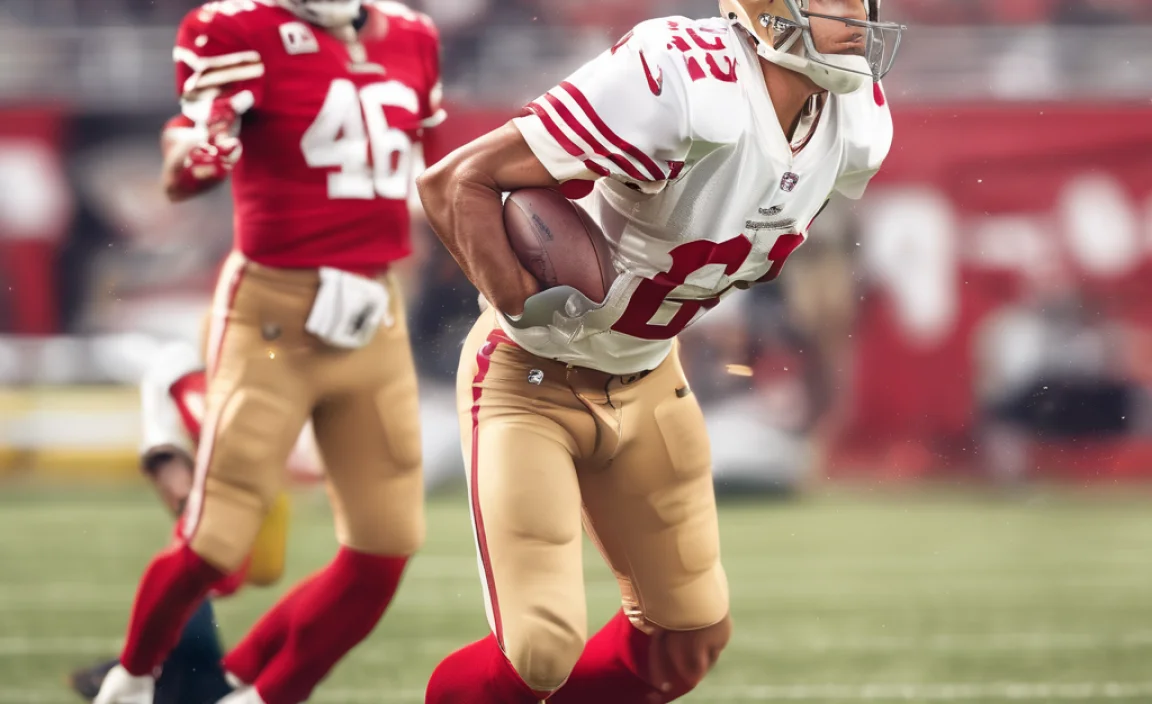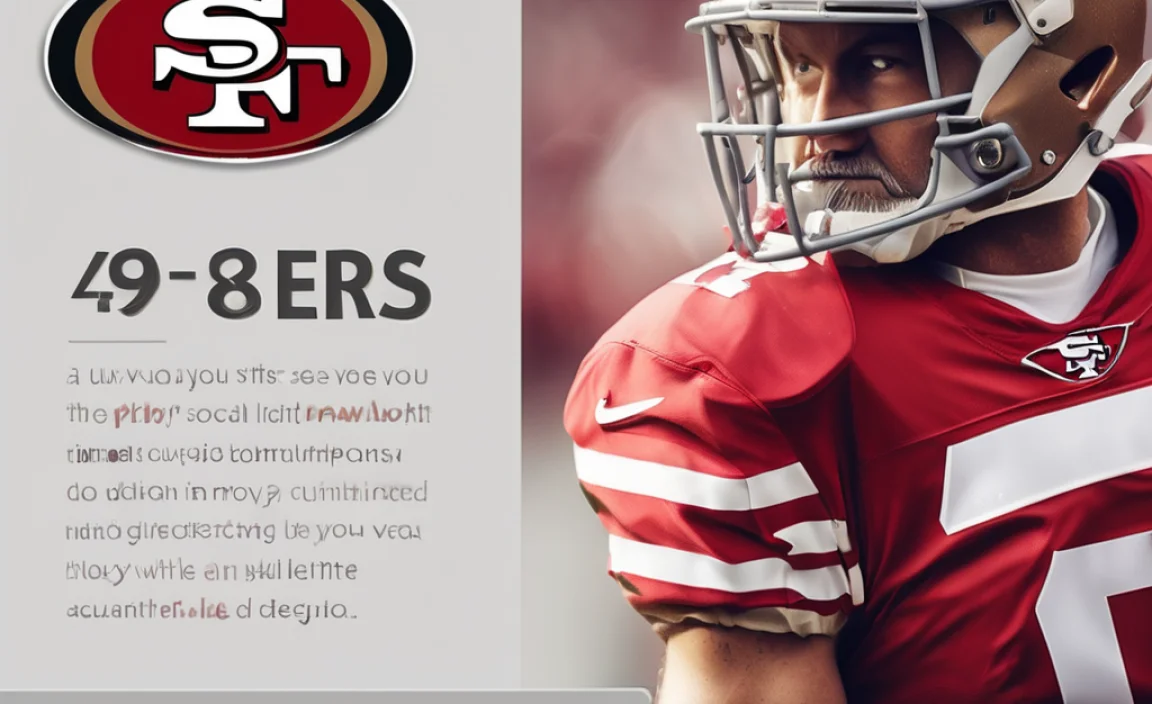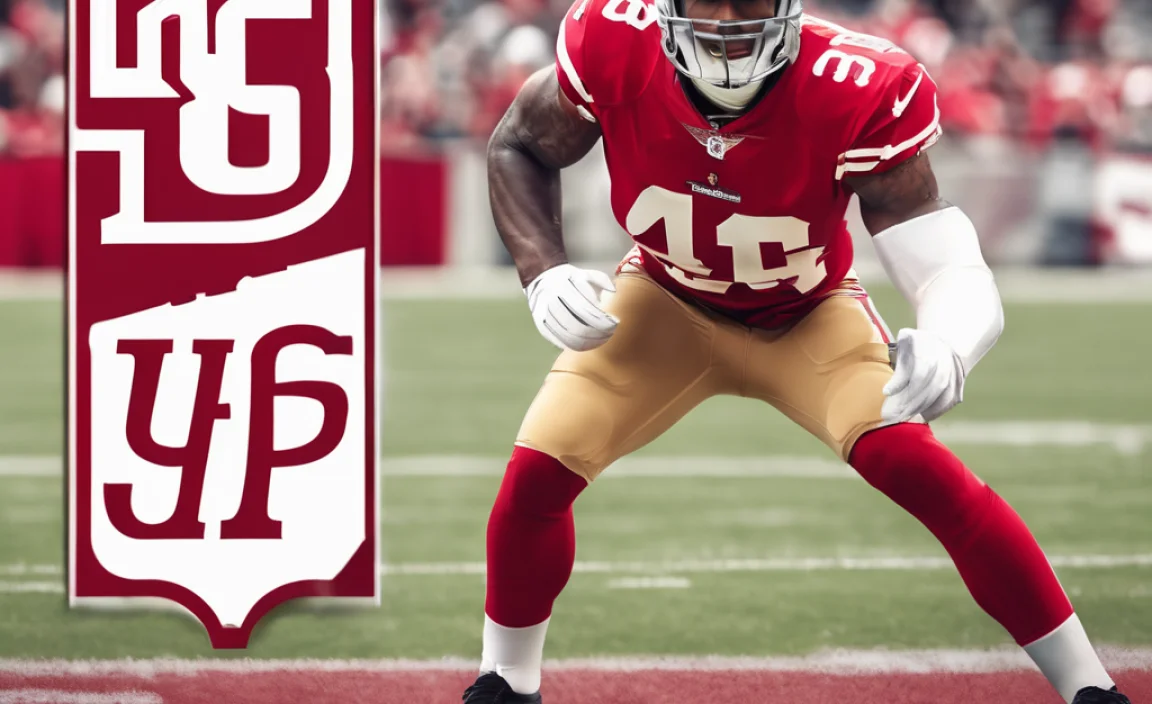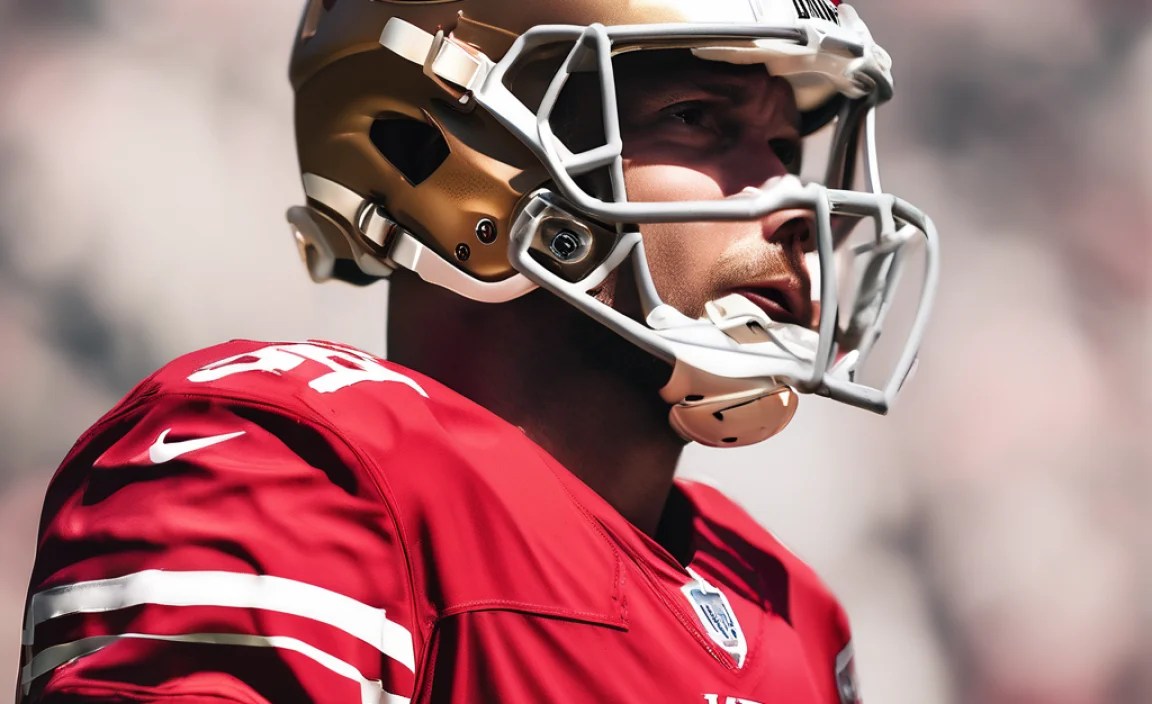
Have you ever noticed the letters on sports jerseys? Each team has its own special style. The 49ers Font is one of these unique styles. It belongs to a famous football team, the San Francisco 49ers. This font helps fans recognize their team right away. Just like a superhero’s logo, it stands out in a crowd. But what makes the 49ers Font so special? Let’s dive into the world of fonts and find out!
- The 49ers Font is iconic and instantly recognizable.
- Letters in sports fonts often show strength and speed.
- Fonts can make teams look unique and exciting.
- Designers create fonts to fit a team’s personality.
- Fans love collecting items with the 49ers Font.
The History of 49ers Font
The 49ers Font has a rich history. The San Francisco 49ers began in 1946. Over the years, their font has transformed. It started as a simple design. But as the team grew popular, the font evolved too. It became bold and strong, just like the players. This font is more than just letters. It’s a symbol of pride and tradition. The font reflects the team’s journey from its early days to now.
- The font started simple and grew bold.
- It mirrors the team’s success over time.
- The font is part of the team’s identity.
- It brings fans closer to their favorite team.
- The font often changes with new team uniforms.
Fans love seeing the 49ers Font on jerseys and merchandise. It connects them to great moments in football history. Every time they see it, they remember their favorite games and players. The font helps fans feel like part of the team. It’s more than just letters; it’s a piece of history.
Where Did the Name 49ers Come From?
Have you ever wondered why they are called the 49ers? The name comes from the California Gold Rush of 1849. People called “49ers” flocked to California in search of gold. The football team chose this name to honor those adventurers. Just like the gold seekers, the team strives for greatness. The 49ers Font is a nod to this adventurous spirit. It’s bold and exciting, just like the original 49ers.
How Do Fonts Tell Stories?
Fonts are like little storytellers. Each one has a style and a message. The 49ers Font tells a story of strength and victory. It’s not just about looking good. It’s about showing what the team stands for. Fonts can be powerful tools. They can make us feel excitement, pride, or even nostalgia. Next time you see a font, think about the story it’s telling.
Why Do Teams Change Fonts?
Have you noticed sports teams changing their fonts over time? They do this to keep things fresh and exciting. Fans love seeing new designs. It keeps them engaged and interested. Sometimes, a new font can celebrate a big win or a new season. The 49ers Font has changed over the years too. Each change marks a new chapter in the team’s history. It shows how the team grows and evolves.
Understanding the Design Elements
The 49ers Font is more than just letters. It’s a carefully crafted design. Designers use various elements to make it stand out. The font is bold and dynamic, just like the team. It uses thick lines and sharp edges. These elements give it a powerful look. The colors often match the team’s uniforms. This creates a cohesive look across all team items.
- Designers use thick lines for boldness.
- Sharp edges create a dynamic effect.
- Colors match the team’s uniforms.
- The font is easily recognizable by fans.
- It symbolizes the strength of the team.
Design plays a crucial role in sports branding. A well-designed font can inspire and unite fans. It can also attract new supporters. The 49ers Font achieves all this effortlessly. It’s a perfect blend of tradition and modernity. No wonder fans cherish it so much.
What Makes Fonts Look Powerful?
Ever wonder why some fonts look powerful? It’s all in the design. Thick lines and sharp angles make fonts appear strong. The 49ers Font uses these elements to convey power and determination. When fans see it, they think of strong players and tough games. This is why design is so important in sports.
Can Fonts Change Fan Experience?
Fonts can greatly impact fan experience. A good font makes fans feel connected to the team. It becomes a part of the game’s excitement. The 49ers Font gives fans a sense of belonging. They wear it proudly on jerseys and hats. The font is a bridge between the team and its supporters.
How Does Color Affect Fonts?
Colors play a big role in how we perceive fonts. The 49ers Font often uses the team’s colors: red and gold. These colors evoke feelings of energy and prestige. When fans see these colors, they instantly think of the 49ers. Colors and fonts together create a powerful brand identity.
Comparing 49ers Font With Other Sports Fonts
Question: How does the 49ers Font affect merchandise?
Answer: The 49ers Font adds value to merchandise, making it more appealing to fans. It appears on jerseys, caps, and other items, helping fans feel connected to the team.
Question: What makes the 49ers Font unique?
Answer: The 49ers Font is unique due to its bold, dynamic design. It reflects the team’s adventurous spirit and has become a timeless symbol of the San Francisco 49ers.